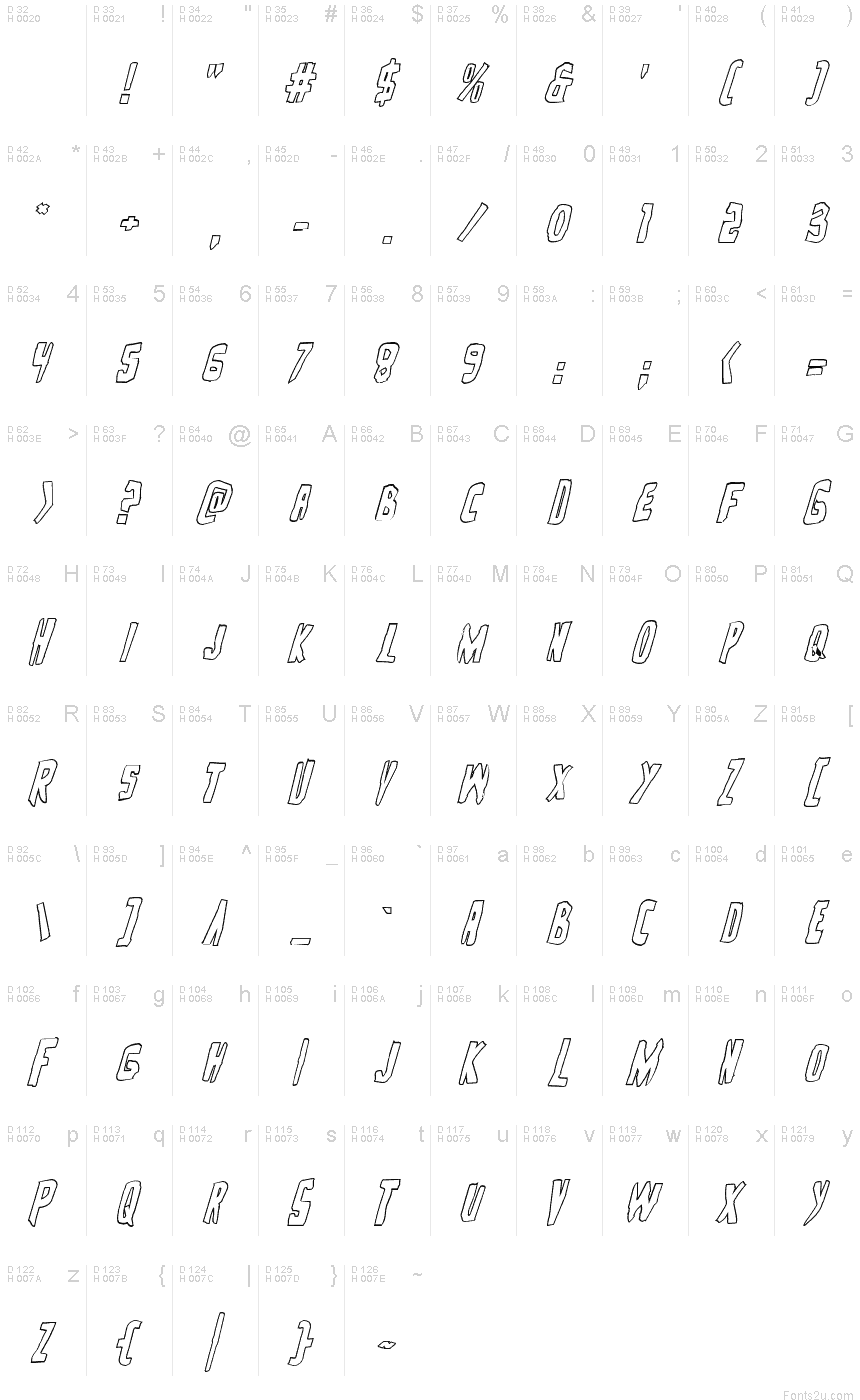
Zakenstein Outline Italic by Daniel Zadorozny of Iconian Fonts is a free outline graffiti font with a sharp forward lean. Its tall, narrow letters twist through uneven angles and abrupt bends. The open interiors keep the restless shapes lean rather than bulky.
On posters, the stretched proportions lend music and streetwear graphics a fast, scraped-up edge. It also suits skate merchandise and event flyers, especially when the lettering needs to echo hand-cut stickers or marker tags. In editorial design, it can turn a cover line into an active graphic element instead of a neutral caption.
Zakenstein Outline Italic